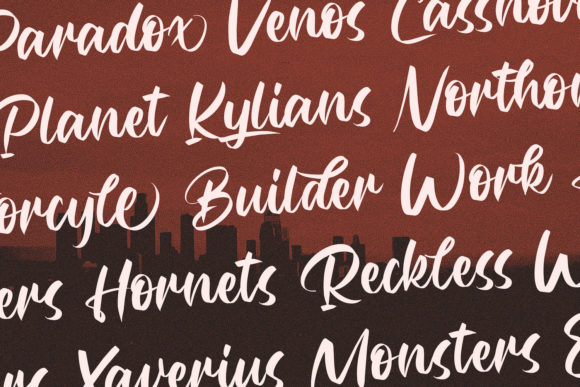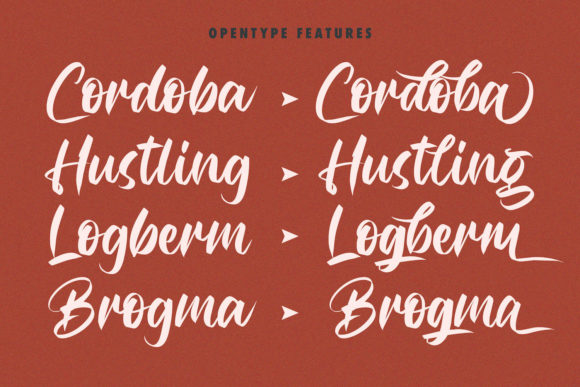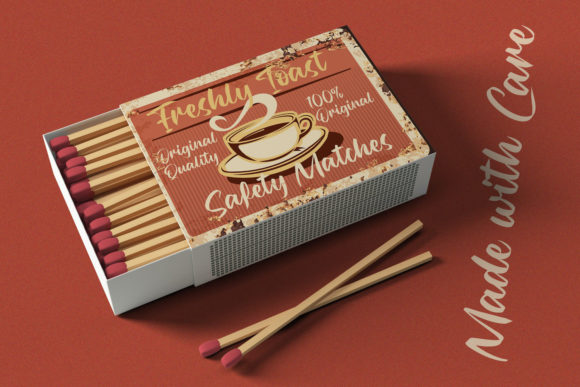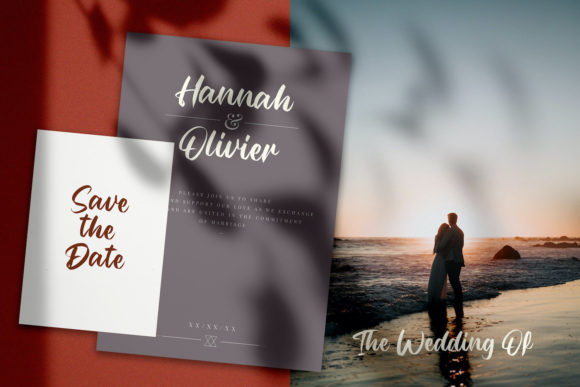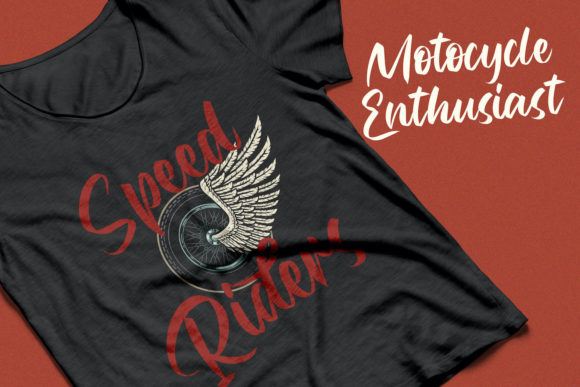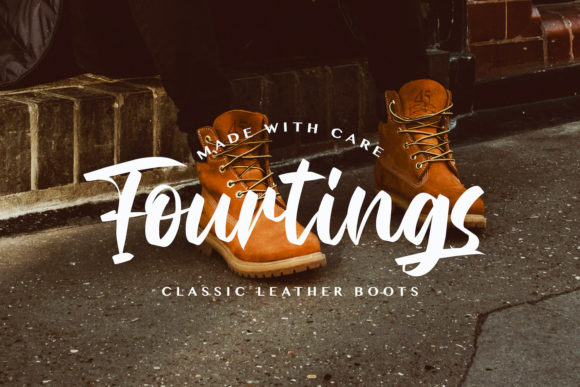
Introduction to Rubeyma Font Font
Fonts play a crucial role in design, and the Rubeyma Font font is a typeface that brings both character and versatility to any project. Whether you’re working on a branding project, a website, or a print design, the Rubeyma Font font offers a unique style that can elevate your work.
Rubeyma is a gorgeous and cursive handwritten font, crafted to give your headlines and logotype projects a stylish touch.
This font reads as strong, confident, and dynamic and can add tons of nostalgic character to your designs .
Key Features of Rubeyma Font Font
Why Choose Rubeyma Font Font?
The Rubeyma Font font is more than just a typeface – it’s a design tool that helps you communicate your message with style and clarity. Its unique character set and versatile design make it suitable for a wide range of applications, from elegant invitations to bold headlines.
With its carefully crafted letterforms and balanced proportions, the Rubeyma Font font ensures readability and visual appeal across all mediums.
What makes Rubeyma Font font special?
The Rubeyma Font font stands out with its unique design, exceptional readability, and versatility across various design applications.